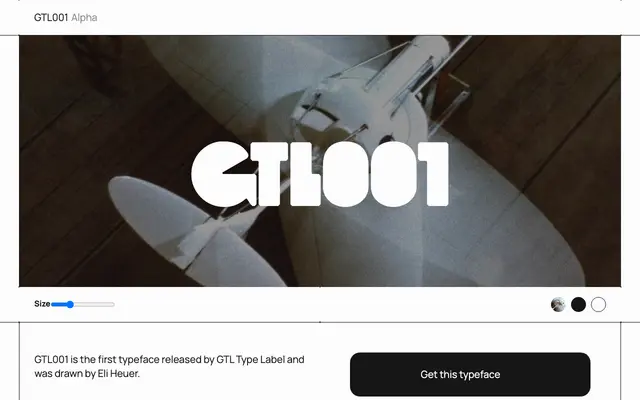
A minimal, likely experimental display typeface with little published information beyond its alphanumeric designation.
GTL001 appears to be an early or experimental release listed on the Free Faces gallery, given only an alphanumeric identifier and the label 'Alpha'. Virtually no design detail or metadata accompanies the listing, suggesting it is either a work-in-progress or a concept release. Its tier and usability are difficult to assess without further specification.
The sparse page content and name 'GTL001' suggest an experimental or display typeface; classified as display given the alphanumeric designation typical of concept-driven or experimental releases.